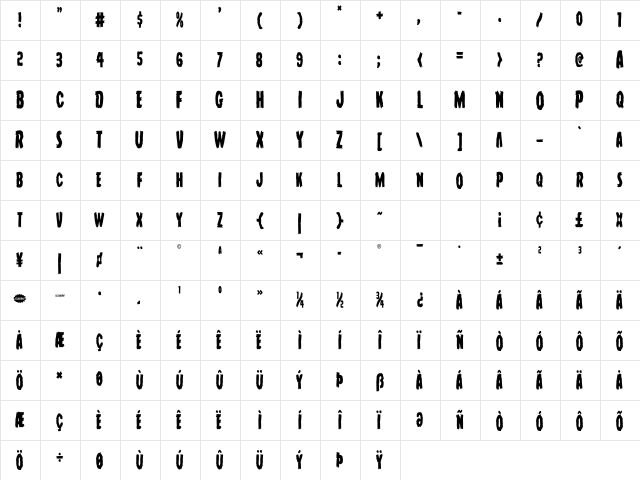
Young Frankenstein Condensed Condensed
Design Context for Young Frankenstein Condensed Typeface
Young Frankenstein Condensed takes a measured approach to typography — its balanced proportions and neutral character make it a reliable workhorse for both digital and print work. Its narrow stance lets it pack a punch even in space-constrained designs.
Pro Tip: Use Young Frankenstein Condensed in both headline and body roles to test its range before committing to a single application.